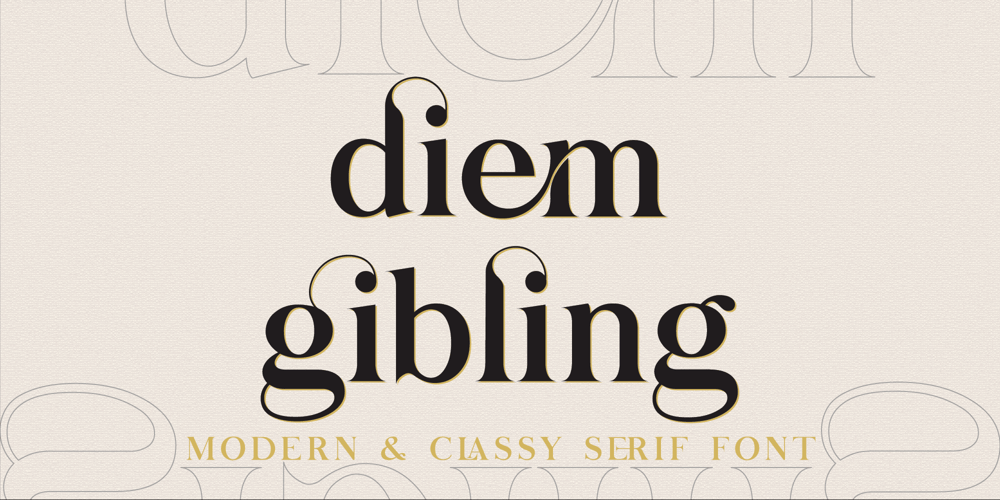
Diem Gibling Font Family was designed by El Mehdi CHOUYOUKH and published by Mchcrafter. Diem Gibling contains 1 styles and family package options. Introducing the new Diem Gibling Ligature Serif!!! Diem Gibling is an elegant and classy serif typeface – This font is both modern and nostalgic and works great for logos, magazine, social media. Already matched up and ready to be used together for your next design! For those of you who are needing a touch of elegant, stylish, classy, chic and modernity for your designs, this font was created for you!